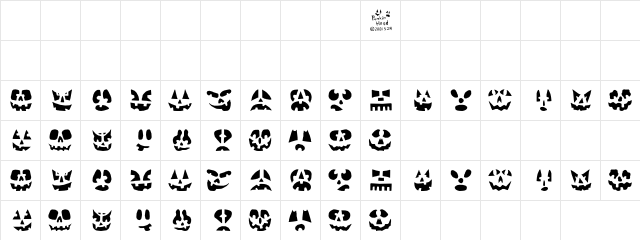
Punkinhead Regular
Design Context for Punkinhead Typeface
Punkinhead is a composed and adaptable typeface that performs quietly and consistently across a wide range of design contexts.